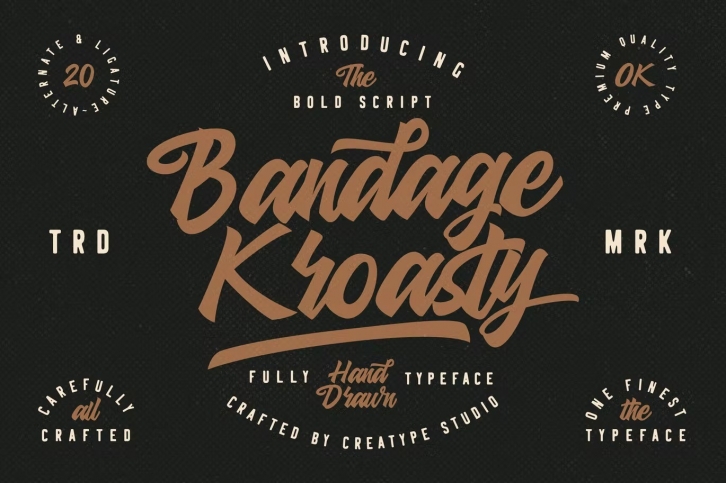
Bandage Kroasty is an old-time, vintage-looking script font with natural hand-lettering movement.
Bandage Kroasty is perfect for branding projects, logos, wedding designs, social media posts, advertisements, product packaging, product designs, label, photography, watermark, invitation, stationery and any projects that need handwriting taste.